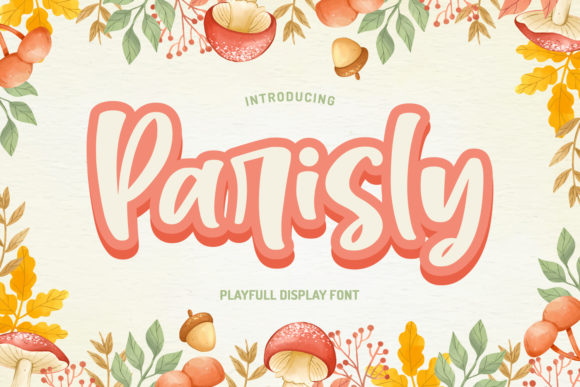
Welcome to the world of Parisly Font - a handwritten script font that dances across your screen with its joyful and relaxed charm. Step into a realm where creativity knows no bounds, and let your imagination soar with this enchanting font.
Parisly Font is not just a font; it's an invitation to express yourself in ways you never thought possible. Its playful strokes and whimsical curves will bring a touch of magic to any project you embark on. Picture your words taking on a life of their own as they flow effortlessly across your designs, captivating hearts and spreading joy like wildfire.
With Parisly Font, you hold the power to craft enchanting wedding invitations that transport your guests to a world of love and elegance. Envision their eyes twinkling with delight as they read your heartfelt words, penned in this graceful and inviting script. Create personalized cards that carry the weight of your emotions, transforming them into tangible expressions of affection and gratitude.
But Parisly Font's allure extends far beyond the realm of paper. Let your creativity shine through as you design vibrant t-shirts that speak volumes about your personality. Imagine your words dancing across fabric, sparking conversations and spreading smiles wherever you go. Turn your Instagram posts into miniature masterpieces, captivating your followers with quotes that come alive with the unique charm of Parisly Font.
The possibilities are endless with Parisly Font. Welcome it into your creative arsenal, and watch as your projects take on a new life. From logos that command attention to branding that leaves a lasting impression, Parisly Font is your gateway to a world of visual delight.
So, embrace the magic of Parisly Font, let your imagination run wild, and create designs that ignite hearts and captivate minds. Step into the spotlight and let your creations shine, all thanks to the captivating brilliance of Parisly Font.